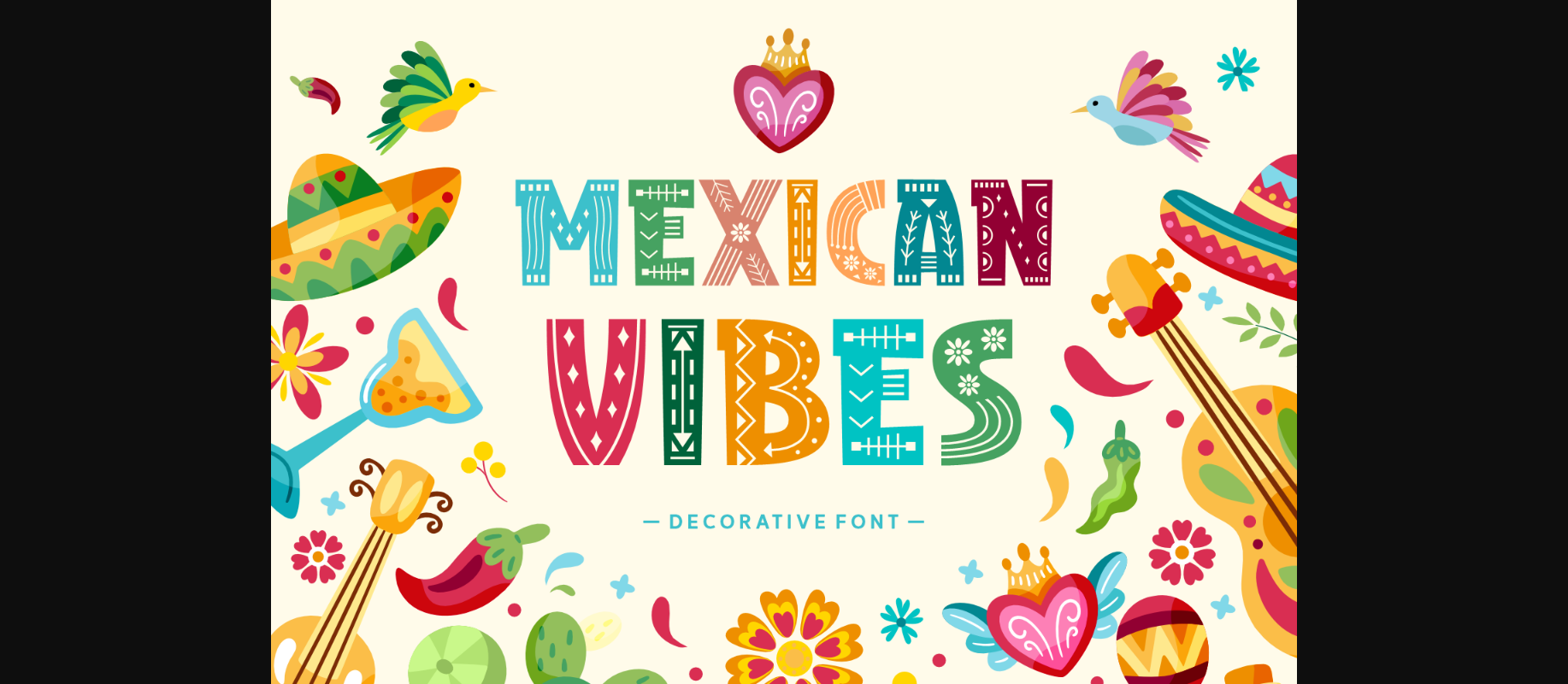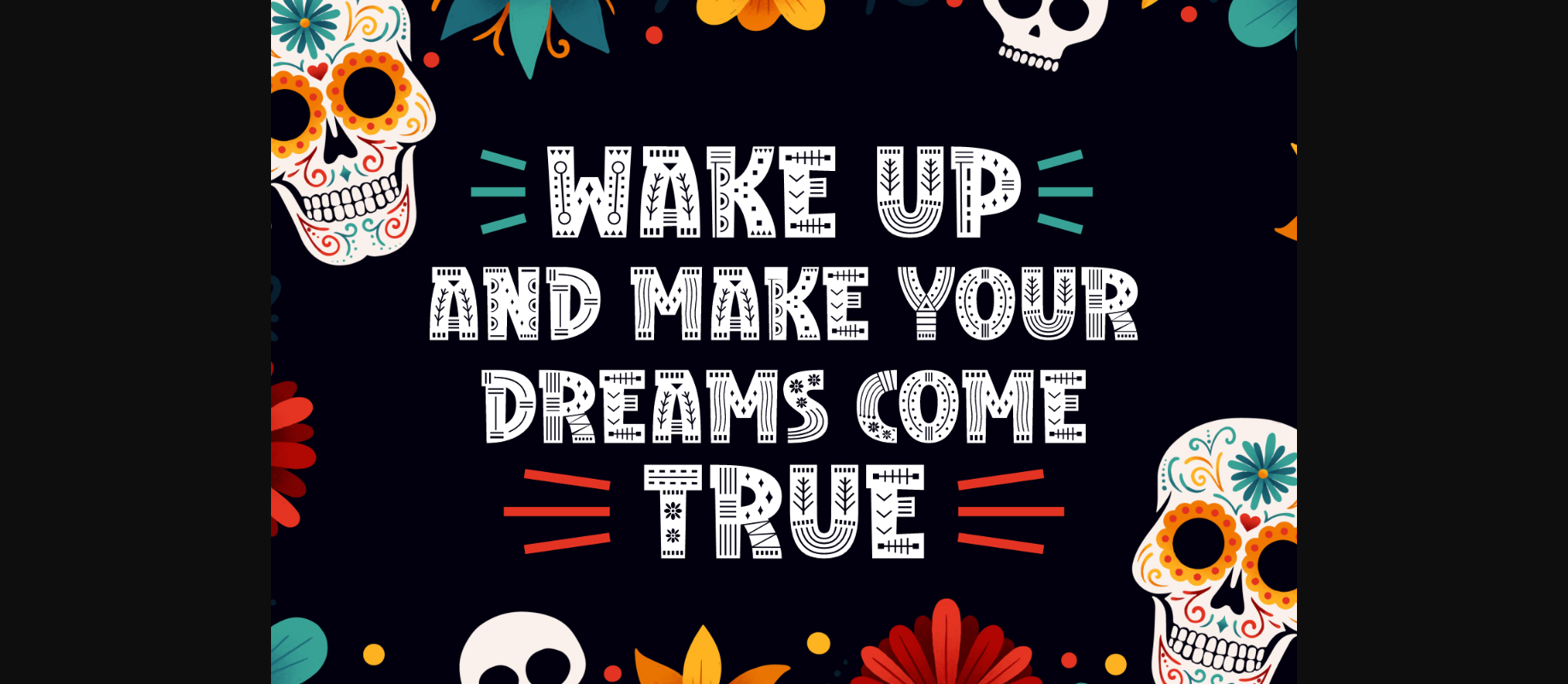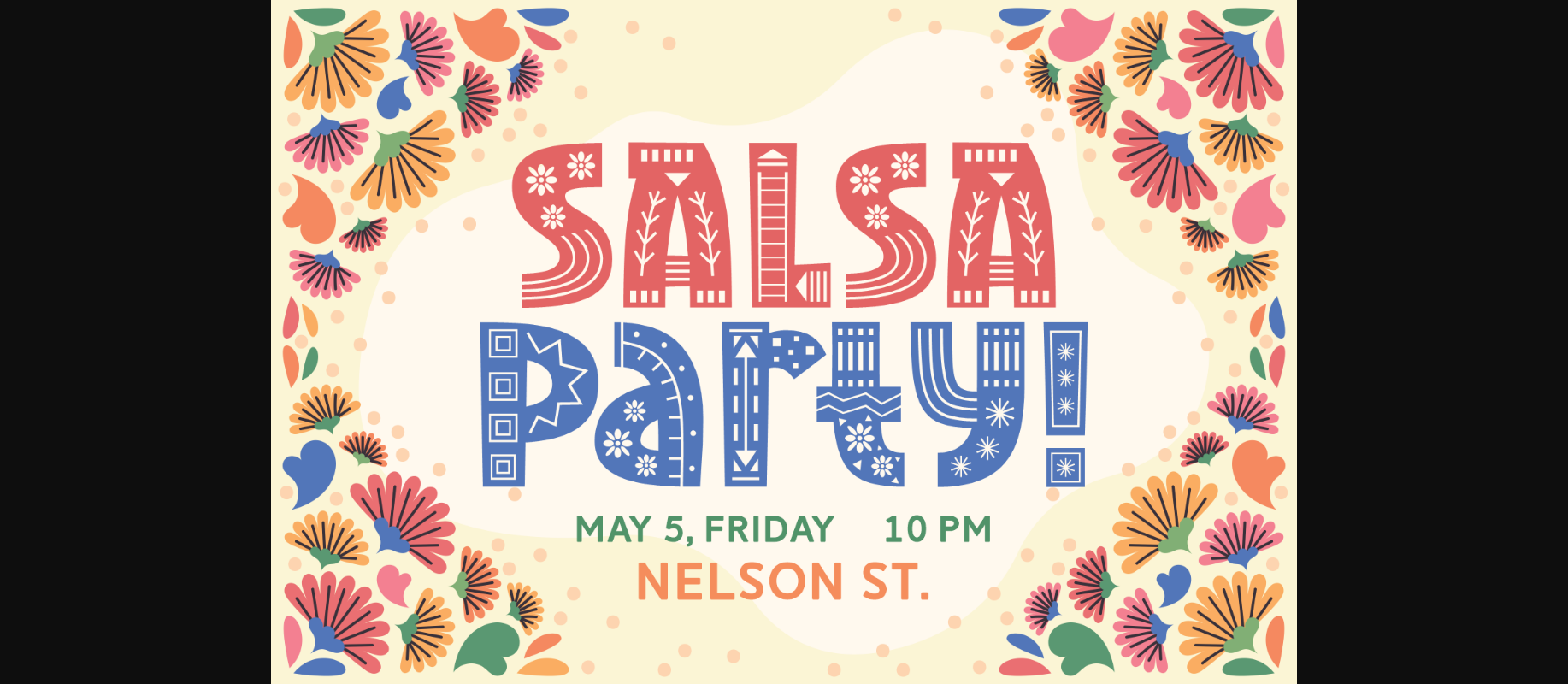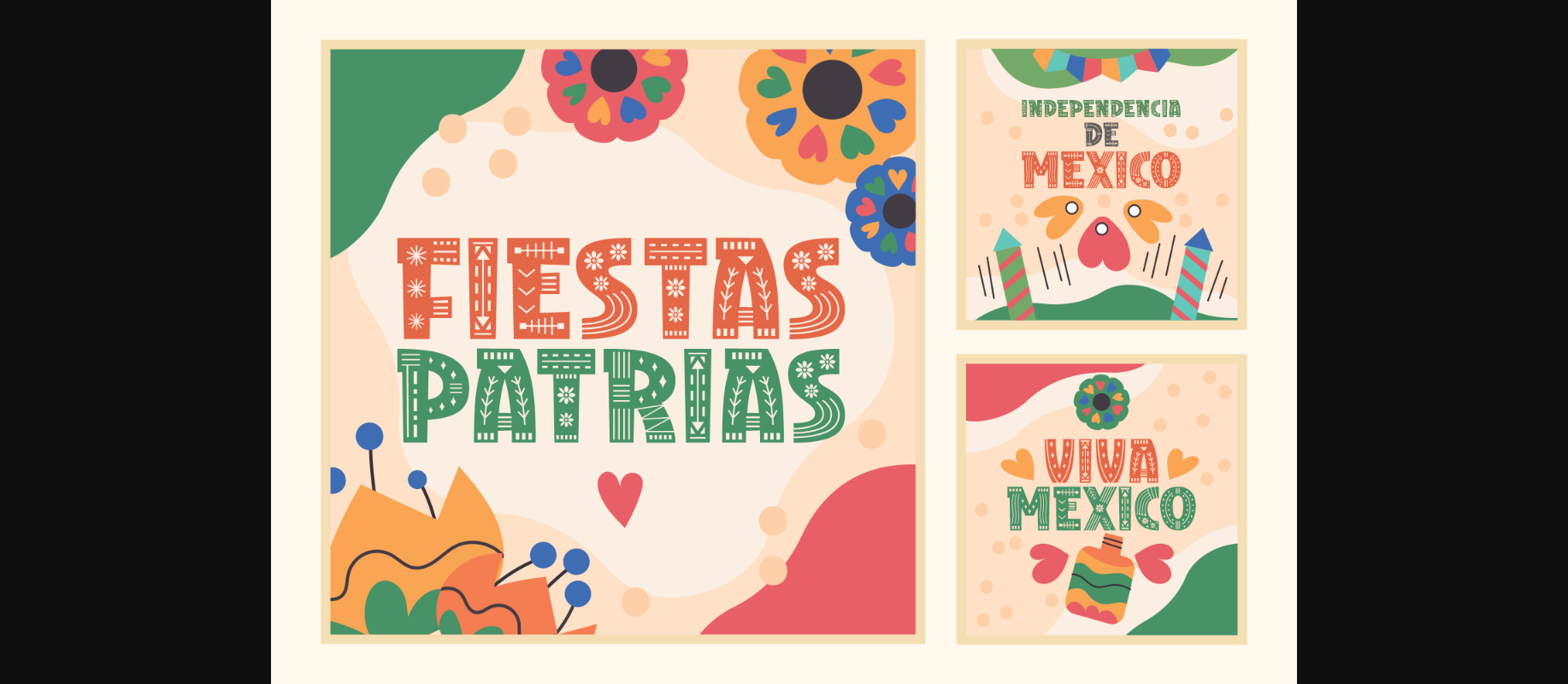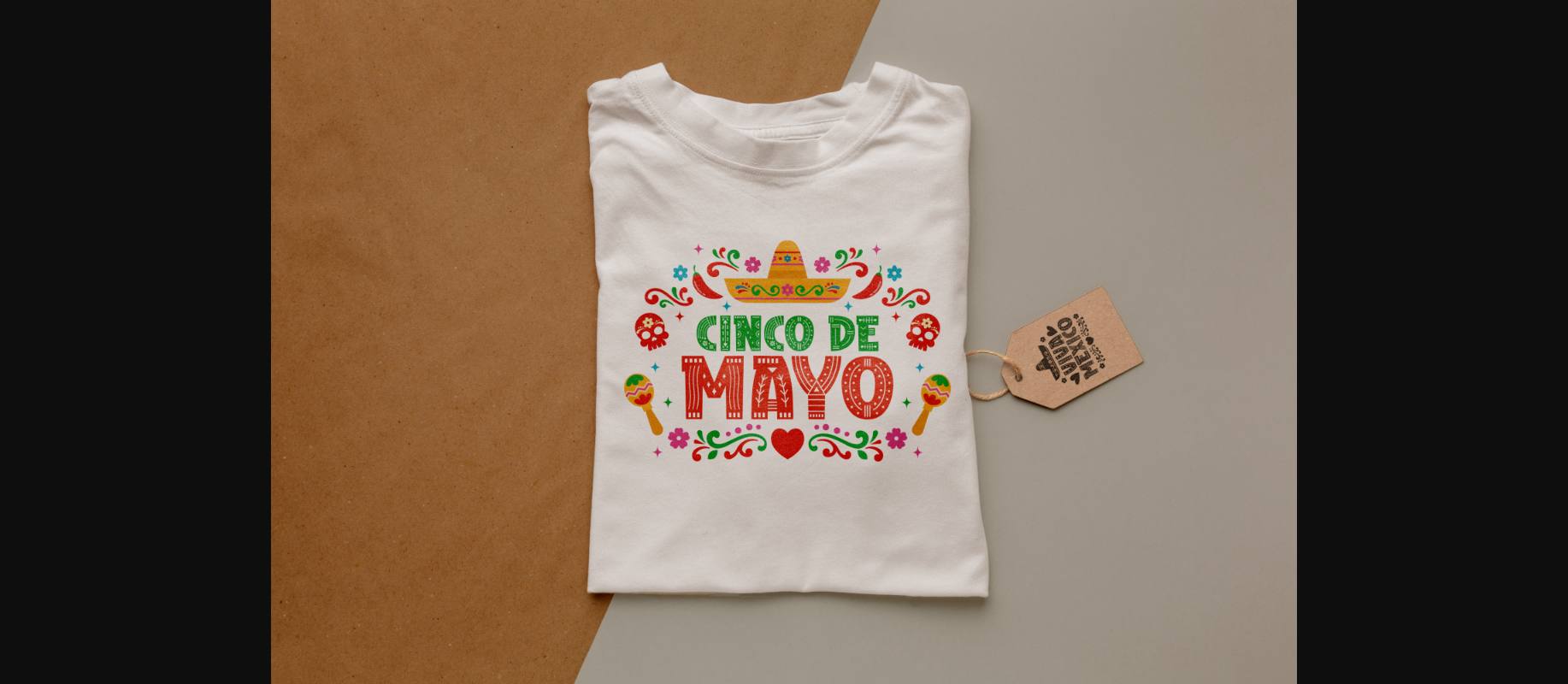
Mexican Vibes Font
About Mexican Vibes Font
Mexican Vibes is an exquisite decorative font, carefully elaborated to become a true favorite. It has an outstanding writing technique that fits lots of design ideas. Fall in love with it and bring your projects to the moon and back!